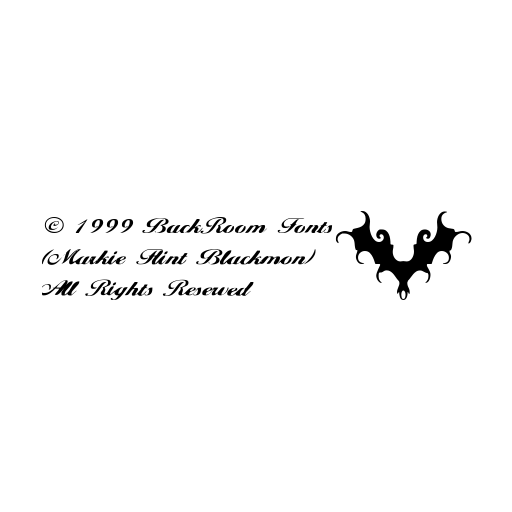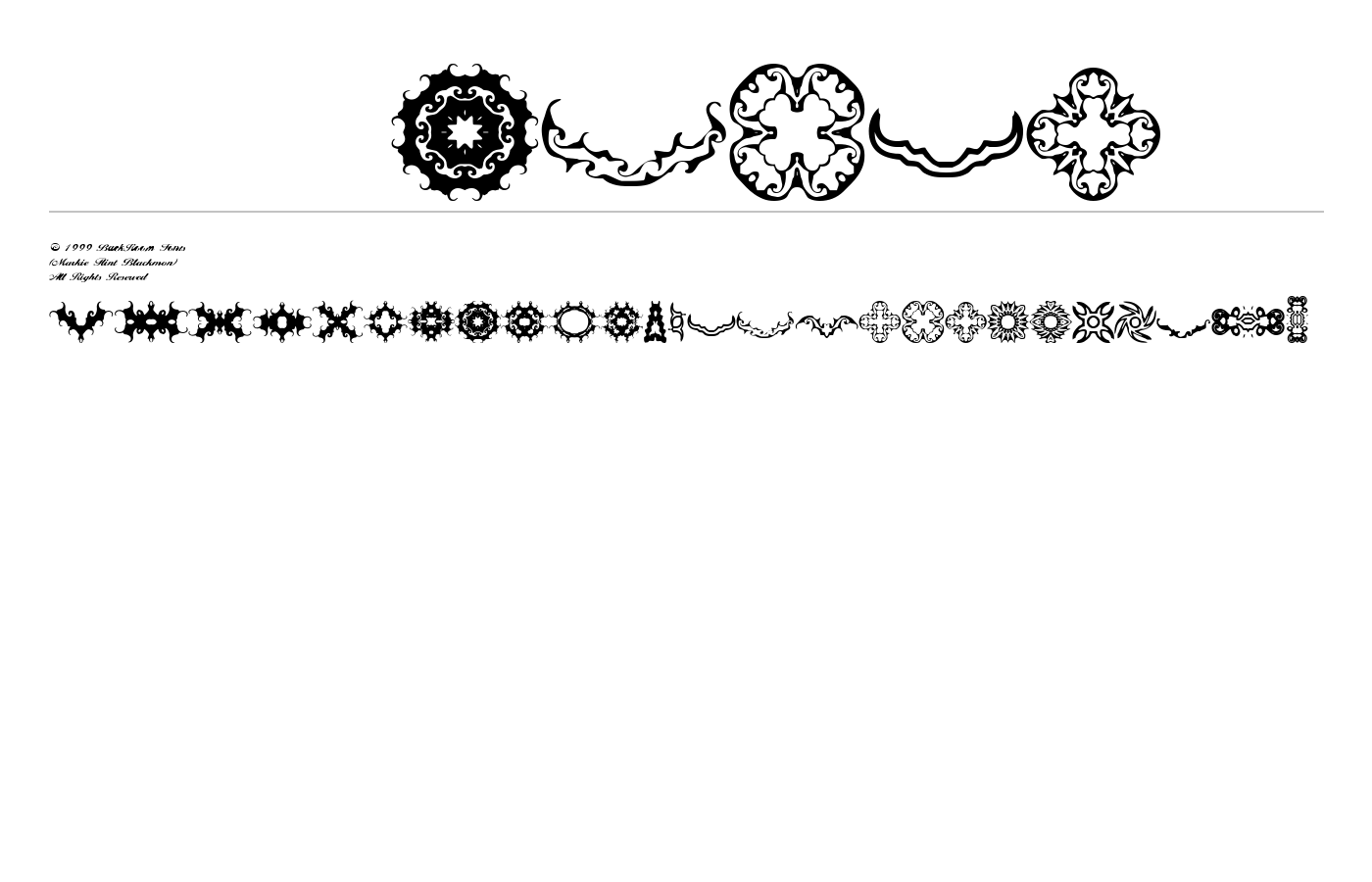
BR Thorns Font is a decorative, ornamental typeface featuring intricate, thorn-like shapes and floral motifs rather than traditional letters or numbers. This font works best for artistic projects, vintage-inspired designs, or themed embellishments where a unique, dramatic flair is needed. Its detailed, ornamental style makes it ideal for borders, logos, or special graphic accents rather than body text or legibility-critical uses.
BR Thorns Font
About BR Thorns Font